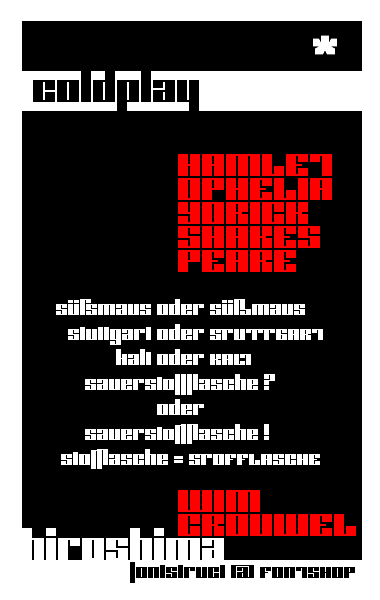
Thanks for posting the sampler. I never noticed before the cool trick you used in lowercase f, l, i and t. There is no crossbar in any of the letters, but just the height and placement of each distinguish it from each other. I am sure I am missing other neat tricks you've used as well in other glyphs. Innovative and effective. Color me impressed. :)
I am drooling yet again. :)-
You couldn't have noticed, because I changed the font today ;)
My 7 Year old daughter ANNA had a very interesting task to do in school: she had to replace the letters of the words she just learned with only vertical lines of different length, to learn about the characteristics of the characters ...
... now, that's what I did :)
The coldplay-concept is to reduce the glyph-shapes to pure (disconnected) rectangles, but I couldn't cope with it, that's why f and t had a diagonal top, which were "nice" but weakend the concept
You can have a look at the orignal f,t,l and i containded in the COLDPLAY font.
But today, while composing the sampler I reminded what Anna did in school and decided to cut the diagonal tops of f and t and suddenly the combination (after month of tweaking) worked for the font.
Your NACHAHMUNG encouraged me to track my T back to the shape featured in your font, (you recognized the tribute?) ... and suddenly I had the ideas for ST and TT ligatures. (Stuttgart – is one of my fonstruct-font-proving words).
ps: you may have a look at my STUTTGART font, which I made as a proof of concept. I'll switch it online for a couple of hours.
Thank you for sharing the story of Anna and her interesting assignment. Inspiration comes from unexpected sources, doesn't it.
I noticed the new T and Wim Crouwel and hiroshima but didn't make the connection that it had anything to do with me. That's just too cool.
Oh I just noticed the Coldplay asterisk. It is just outright beautiful. Reminds me of the Japanese sakura hana. It deserves a poster of its own.
I cloned this font and was trying out different versions of TT and other characters. In trying to eliminate all extra blocks of negative space, I ended up with the following [see image below]. It solves the spacing problem cause by certain characters, but introduces a new problems in height, and by adding taller height glyphs it changes the nature of this font, so, in simple words, I couldn't come up with a valid reason for some characters to be taller than others. Even without proper justification, J L P and T all get their negative space eliminated--all except F. I couldn't find a way to get rid of the white space from it.
It doesn't help, but anyway, this is what I came up with:
More on the "solution that doesn't work" (but gets rid of the negative space from the F as well):
Cool samples!
Maybe your right with the E ... which is in this case a "diabolic" glyph ... I checked this version, too but came to the decision that the actual E works better for me – actually I don't know how. I think I'm going to change it.
By the way ... I don't want to get rid of white space ... I think the white space is important ... it makes the font readable. I think L, P, J, T (in this case) make the difference so one can indicate at a glance [or two ;)] what's written.
(maybe you went too far with that in your NACHAHMUNG II which is in my eyes a decline, sorry about that)
My problem is that some combinations of characters like LT, TT leave too much space and loose the balance(SIC!):
you'll read FAL TER instead of FALTER ...
Shape and Space have to be consistent. (it's not a must!)
Thanks for playing with COLDPLAY and sharing your ideas
I just added your F/f and J as alternates :)
I did Nachahmung Block for a specific reason. It is only the second of all my fonts that I've actually used in some design. There was a word, and I had to replace the 'i' in that word with two words, so I needed it to have no negative space in it for the 'i' to look reasonably solid. It was a necessity. But since I had already done it, I thought I might as well share it.
BTW, I like STUTTGART as well. No middle crossbar is a cool idea. 8)